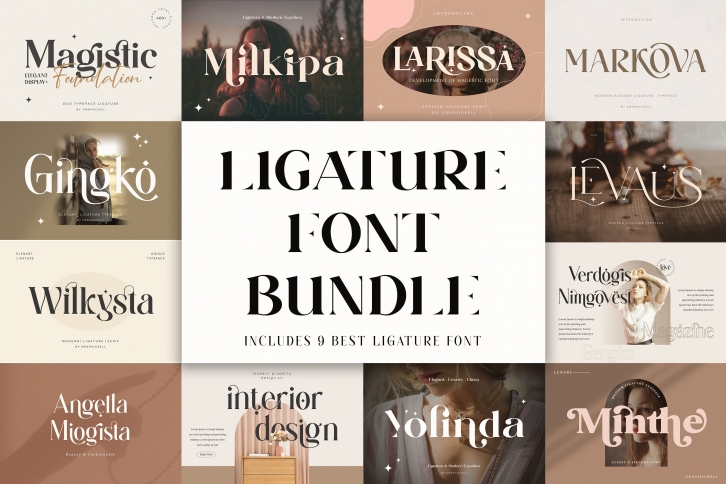
Ligature Bundle is a great font that was designed by Graphicxell. Imagine the amount of combinations you can create using this font! The archive is 19.3 MB and it was released on January 2, 2022. Ligature Bundle looks beautiful on wedding invitations, greeting cards, logos, posters, labels, t-shirt designs, logos, business cards and is perfect for use in ink or watercolor works, fashion, magazines, packaging and food menus, children's books and more!